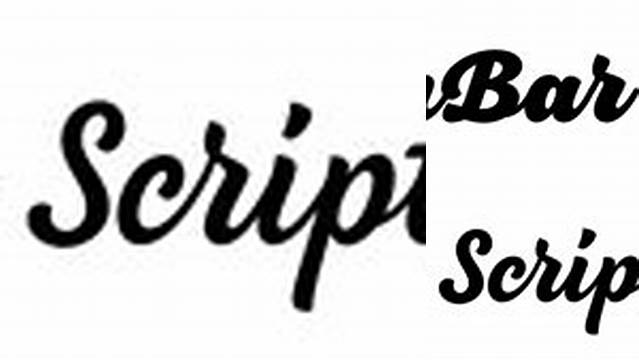
Hey guys! Are you on the hunt for a font that screams bold, fun, and a little bit vintage? Then you've come to the right place! The Beachbar Script Heavy Font is exactly what you need to add a touch of retro coolness to your designs. This font is perfect for everything from posters and logos to invitations and social media graphics. It's got that laid-back, beachy vibe that makes your text stand out. Let's dive into why this font is a must-have for your font library and how you can snag it for free. Whether you're a seasoned designer or just starting out, this font can add a playful yet impactful touch to your projects. So grab your virtual surfboard and let's ride the wave of creativity with the Beachbar Script Heavy Font!
Beachbar Font: What Makes It Special?
The Beachbar Script Heavy Font isn’t just another typeface; it’s a statement. Its robust, flowing lines and vintage aesthetic make it ideal for projects that need a touch of nostalgia with a modern twist. Think of it as the perfect blend of old-school charm and contemporary boldness. When you're looking for a font that can convey a sense of fun and energy, the Beachbar Script Heavy Font is a top contender. This font stands out because of its unique character and versatility. It’s not just about looking good; it’s about communicating a specific vibe. The font's heavy weight makes it highly legible even in smaller sizes, ensuring your message comes across clearly.
The Vibe of Beachbar Script
The Beachbar Script Heavy Font gives off a relaxed, informal yet impactful vibe. Imagine the hand-lettered signs you might see at a retro diner or a vintage surf shop – that's the kind of feeling this font evokes. It’s perfect for projects where you want to communicate a sense of fun, energy, and authenticity. The font's playful curves and bold strokes work together to create a visual impact that’s both inviting and memorable. Using the Beachbar Script Heavy Font can instantly inject personality into your designs, making them more engaging and relatable. This font isn't just about words; it’s about creating an experience for your audience.
Versatility in Design
One of the best things about the Beachbar Script Heavy Font is its versatility. It works beautifully for a wide range of projects, from branding and advertising to event invitations and social media content. Whether you're designing a logo, creating a poster, or crafting an eye-catching headline, this font can deliver. The Beachbar Script Heavy Font pairs well with both minimalist and more elaborate designs, adding a touch of character without overpowering the overall aesthetic. This adaptability makes it a valuable asset for any designer. It’s not just about having a cool font; it’s about having a font that can adapt to various design needs and styles.
Why Choose a Heavy Script Font?
So, why should you opt for a heavy script font like Beachbar? Heavy script fonts bring a lot to the table. Their boldness makes them stand out, ensuring your message gets noticed. They also have a unique, hand-lettered feel that adds a personal touch to your designs. When you want to make a statement, a heavy script font is the way to go. The Beachbar Script Heavy Font combines the elegance of script fonts with the impact of a heavier weight, creating a striking visual effect. It’s the perfect choice when you need a font that’s both stylish and attention-grabbing.
Impactful Visual Presence
Heavy script fonts command attention. Their thick strokes and flowing lines create a strong visual presence that’s hard to ignore. The Beachbar Script Heavy Font is no exception. Its robust design ensures your text stands out, whether it’s used for headlines, titles, or logos. When you need to make a splash, a font like Beachbar delivers. The impactful nature of heavy script fonts makes them ideal for projects where visibility is key. They help your message cut through the noise and make a lasting impression on your audience.
Hand-Lettered Aesthetic
There's something special about the hand-lettered look. It brings a personal, artisanal touch to your designs that feels authentic and unique. The Beachbar Script Heavy Font captures this aesthetic beautifully. Its flowing lines and slightly imperfect edges give it a handmade feel, making your designs more engaging and relatable. The human touch that hand-lettered fonts provide can help your brand connect with your audience on a deeper level. When you use Beachbar, you’re not just using a font; you’re adding a personal signature to your work.
Conclusion: Unleash Your Creativity with Beachbar Font
So there you have it, guys! The Beachbar Script Heavy Font is a fantastic addition to any designer's toolkit, offering a unique blend of vintage charm and modern boldness. Whether you're working on logos, posters, social media graphics, or any other design project, this font can help you make a statement. And the best part? You can download it for free from reputable sources, making it an accessible option for designers of all levels. Remember to always check the license terms before using the font, and pair it thoughtfully with other fonts to create a cohesive and professional look. With its bold style and playful vibe, the Beachbar Script Heavy Font is sure to become a go-to choice for your creative projects. So go ahead, download it, and start experimenting – you might just discover your new favorite typeface! Embrace the creativity and let the Beachbar Script Heavy Font elevate your designs to the next level.